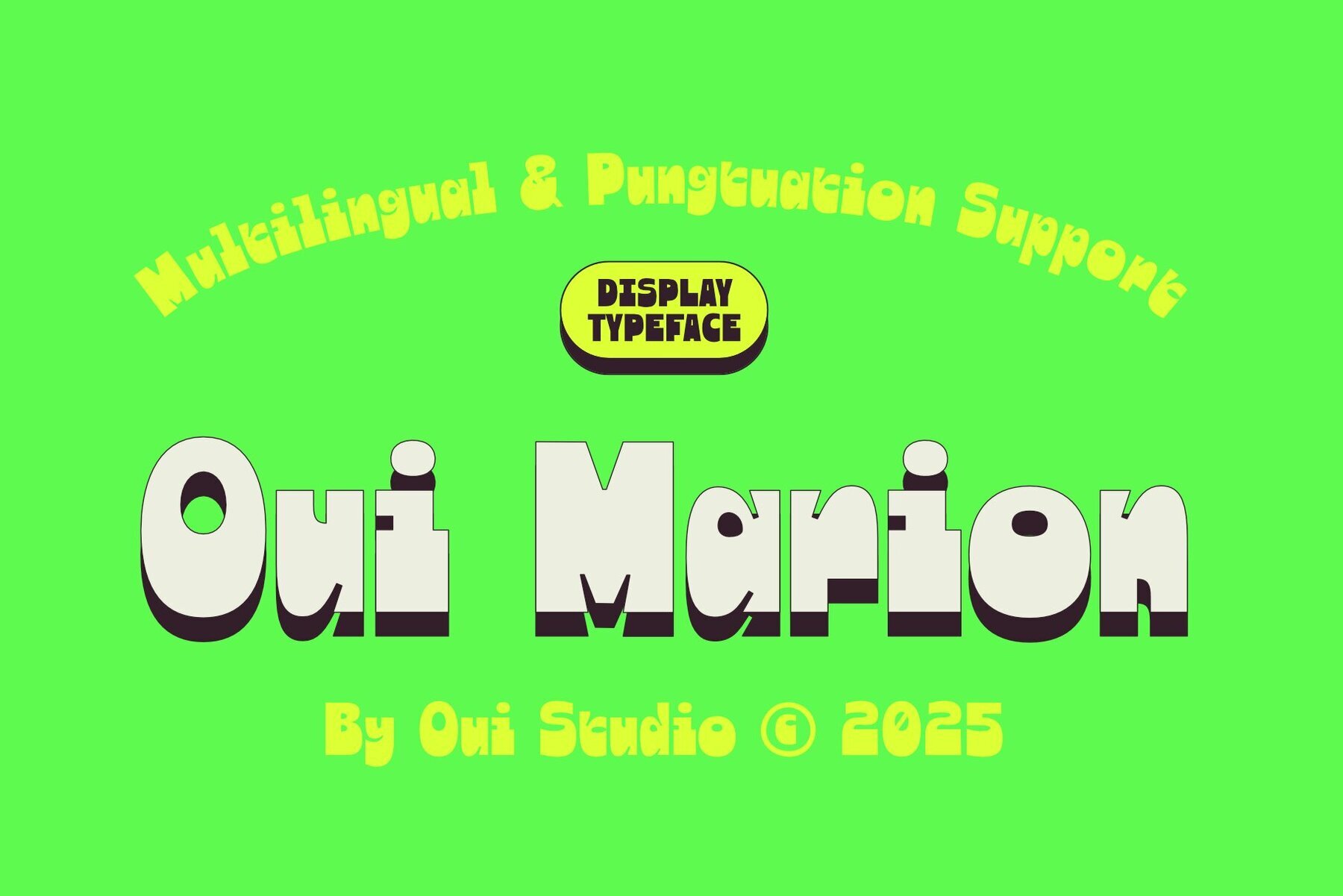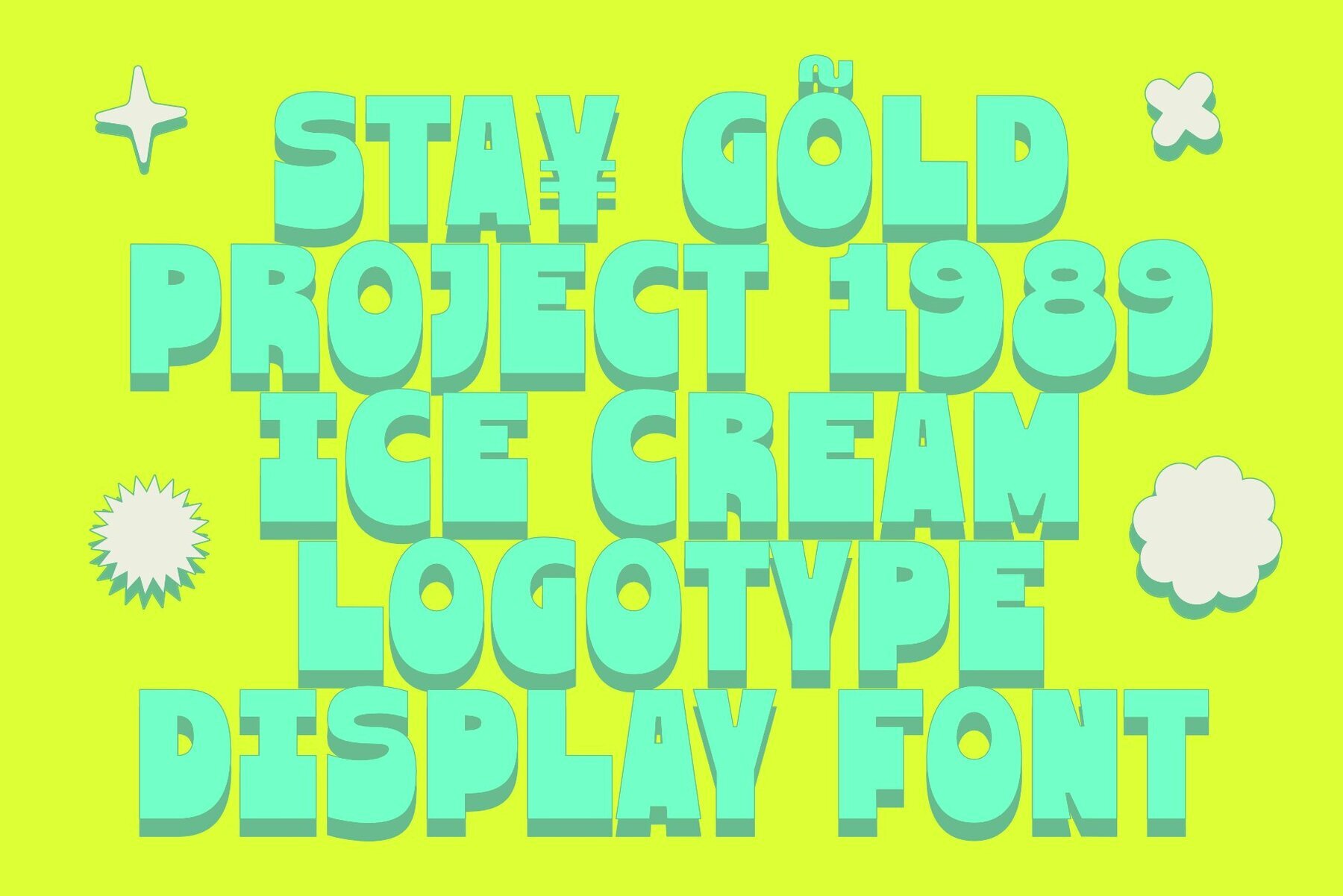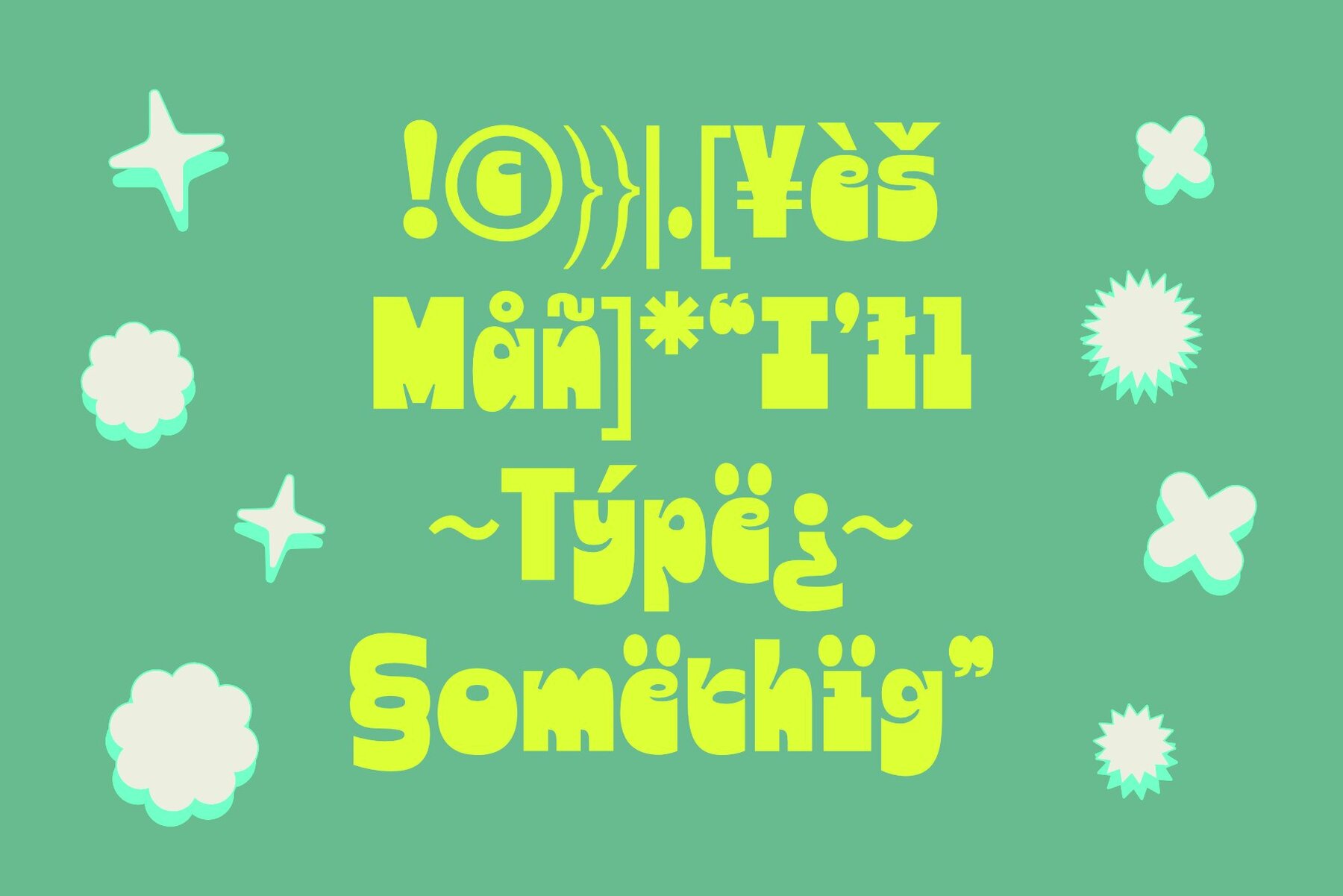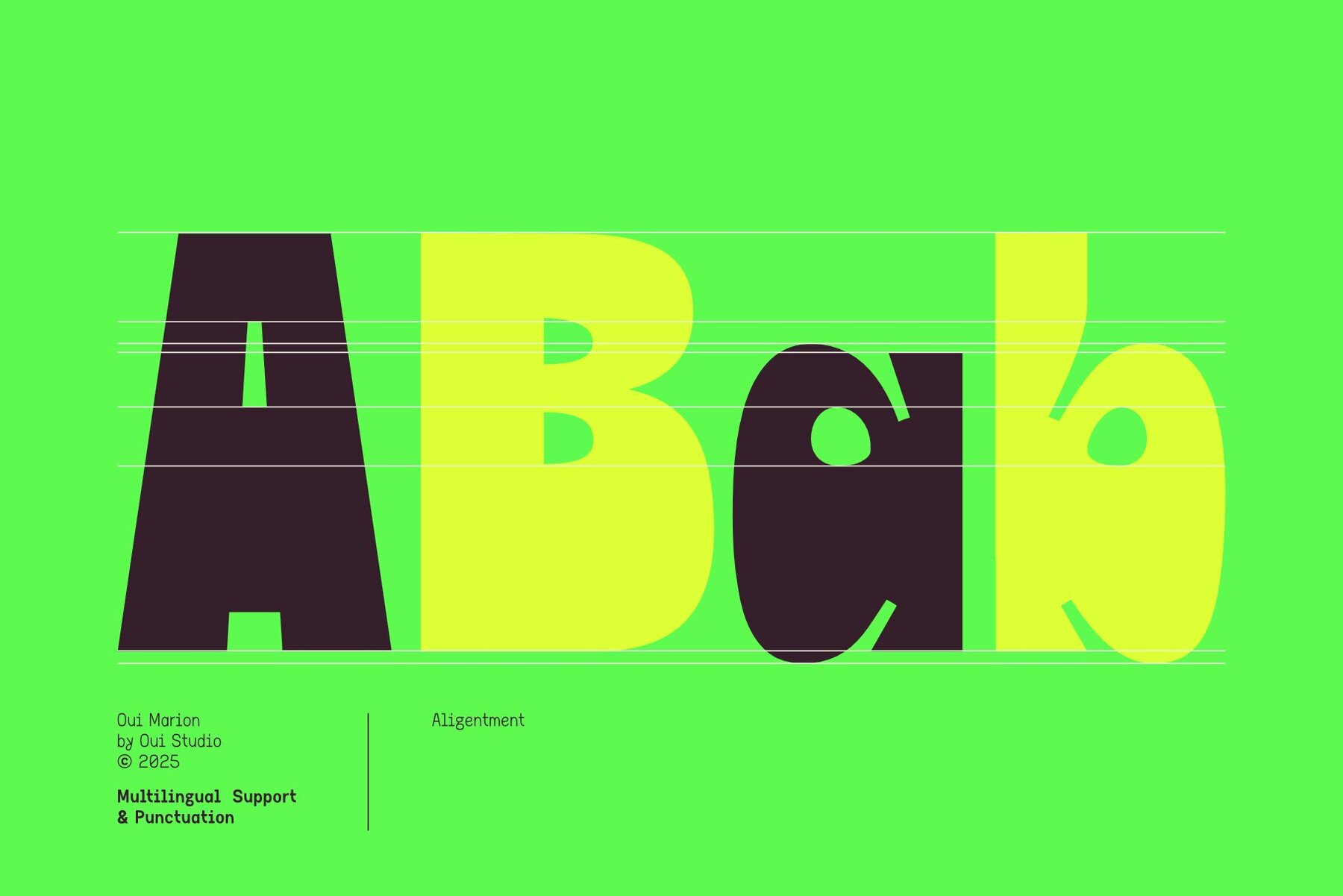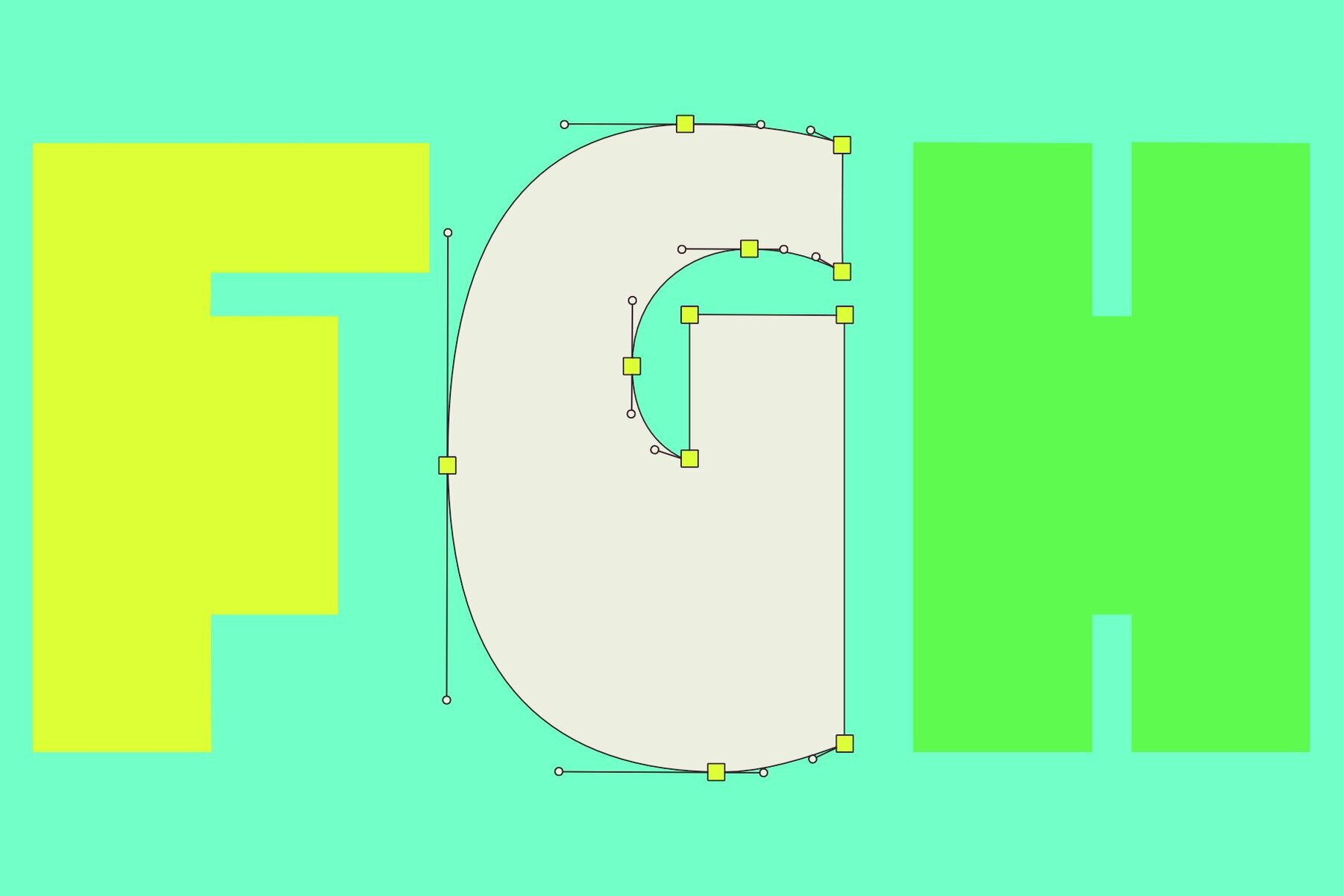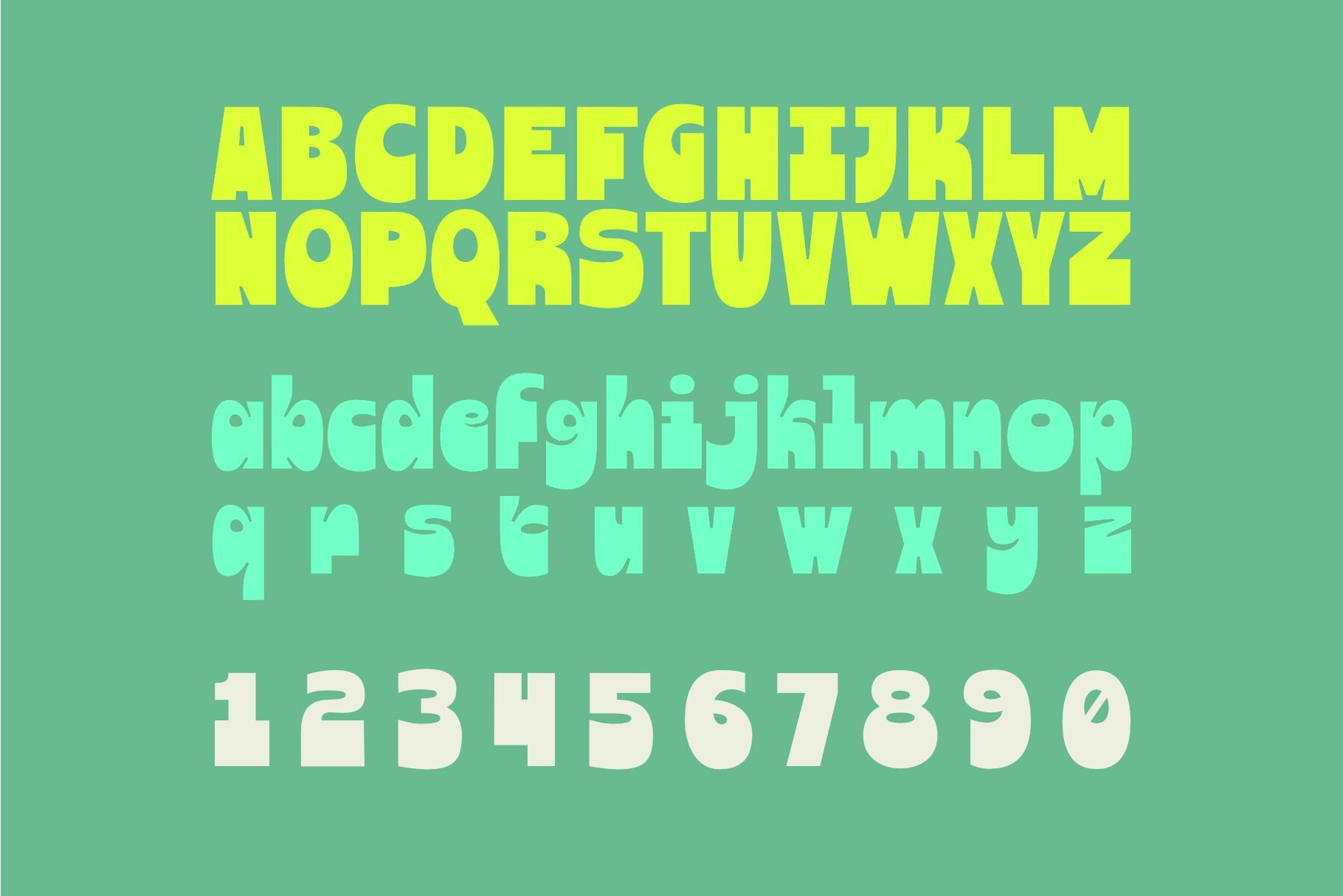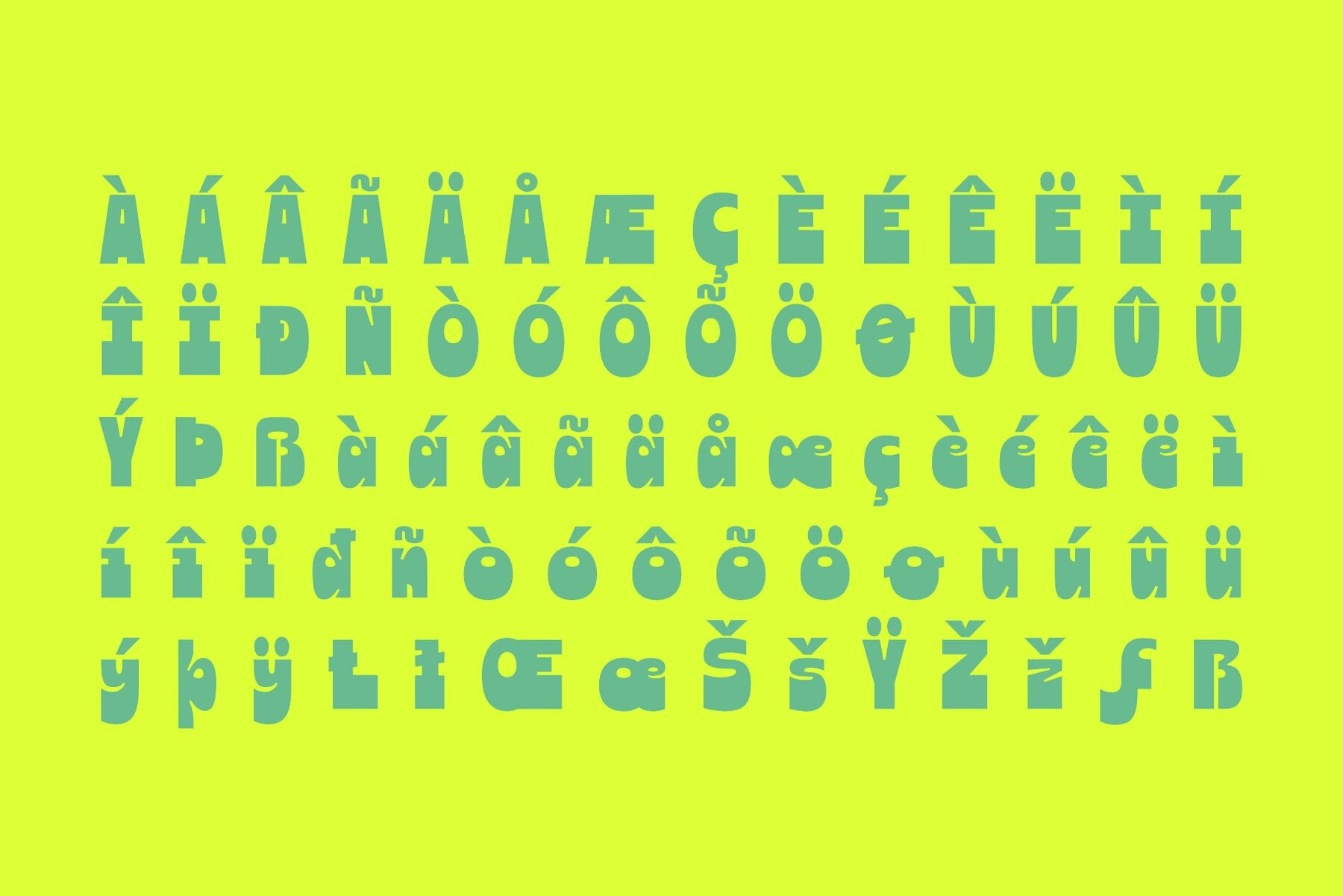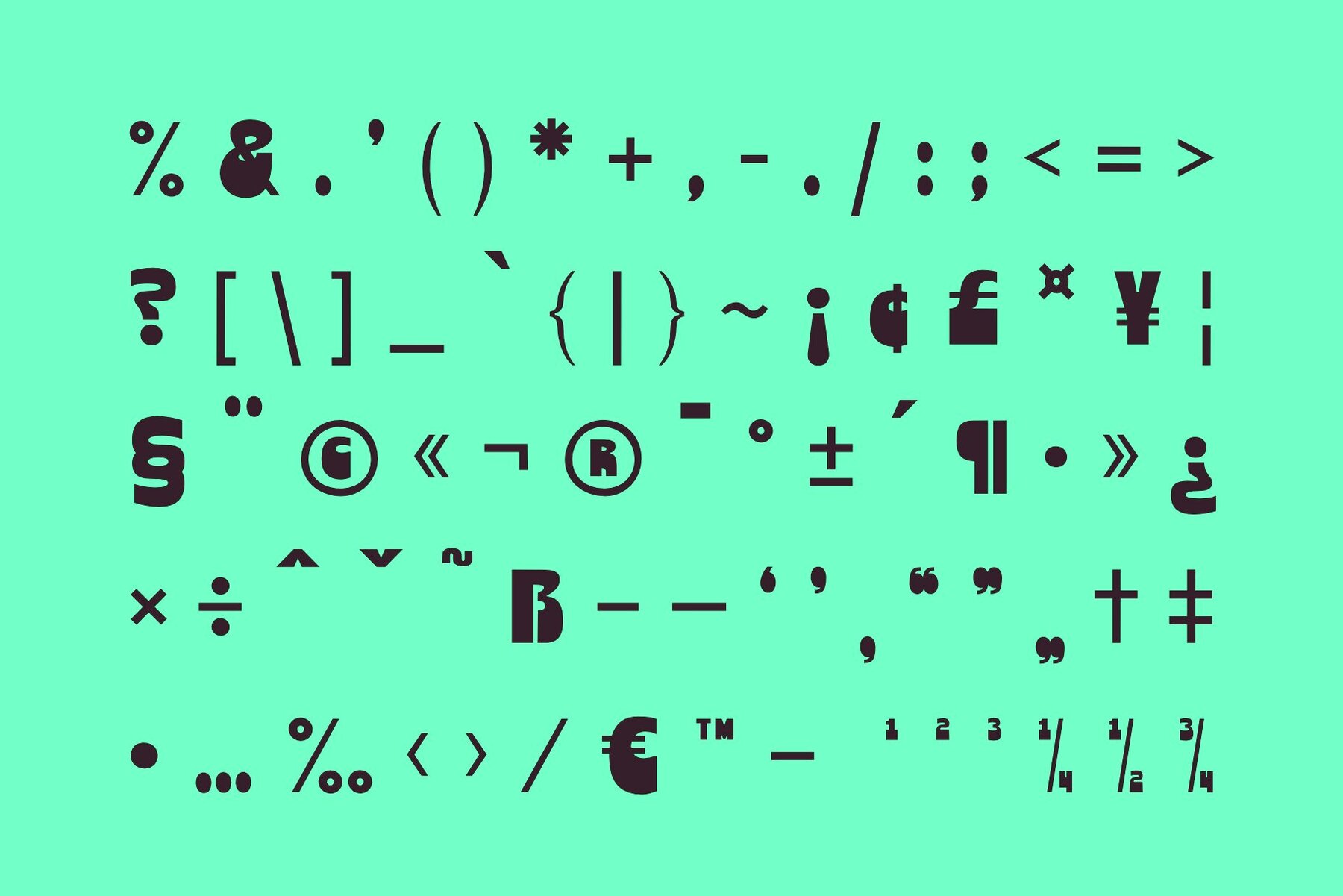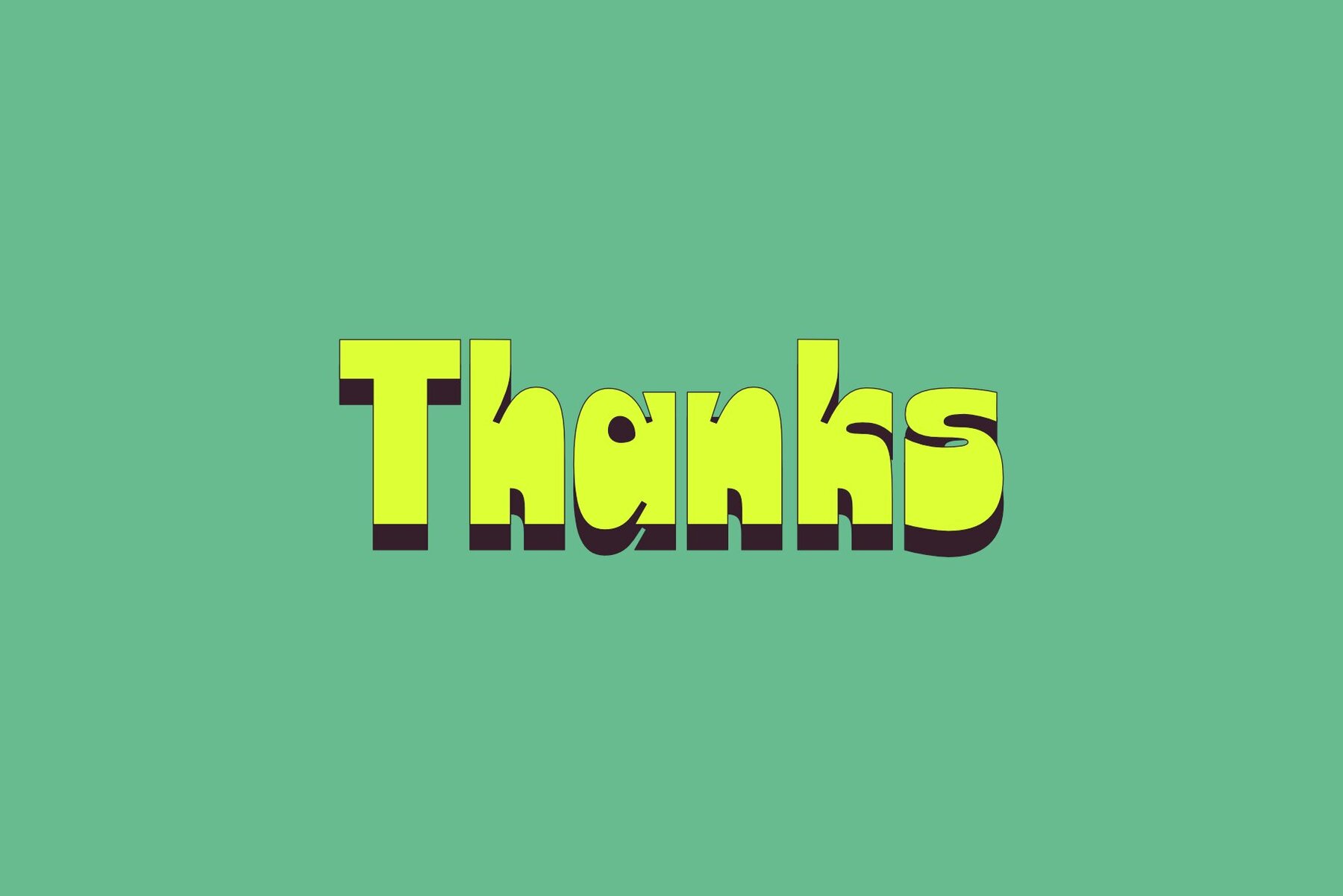
Oui Marion Font
Oui Marion
Oui Marion is a bold and lively display font that effortlessly combines fun with confidence. Featuring soft geometric forms and playful proportions, this typeface exudes a retro-inspired yet modern appeal. Each letter is imbued with a friendly, hand-crafted charm, giving your text a whimsical character and dynamic presence. Designed for projects that demand creativity and positivity, Oui Marion is perfect for a variety of applications including posters, headlines, packaging, and branding. Ideal for children's products, event graphics, or lifestyle brands, this font infuses each composition with a joyful and expressive energy. Oui Marion is not just a font; it's a celebration of bold design and cheerful aesthetics.Oui Marion: A Playful Display Font with Retro Charm